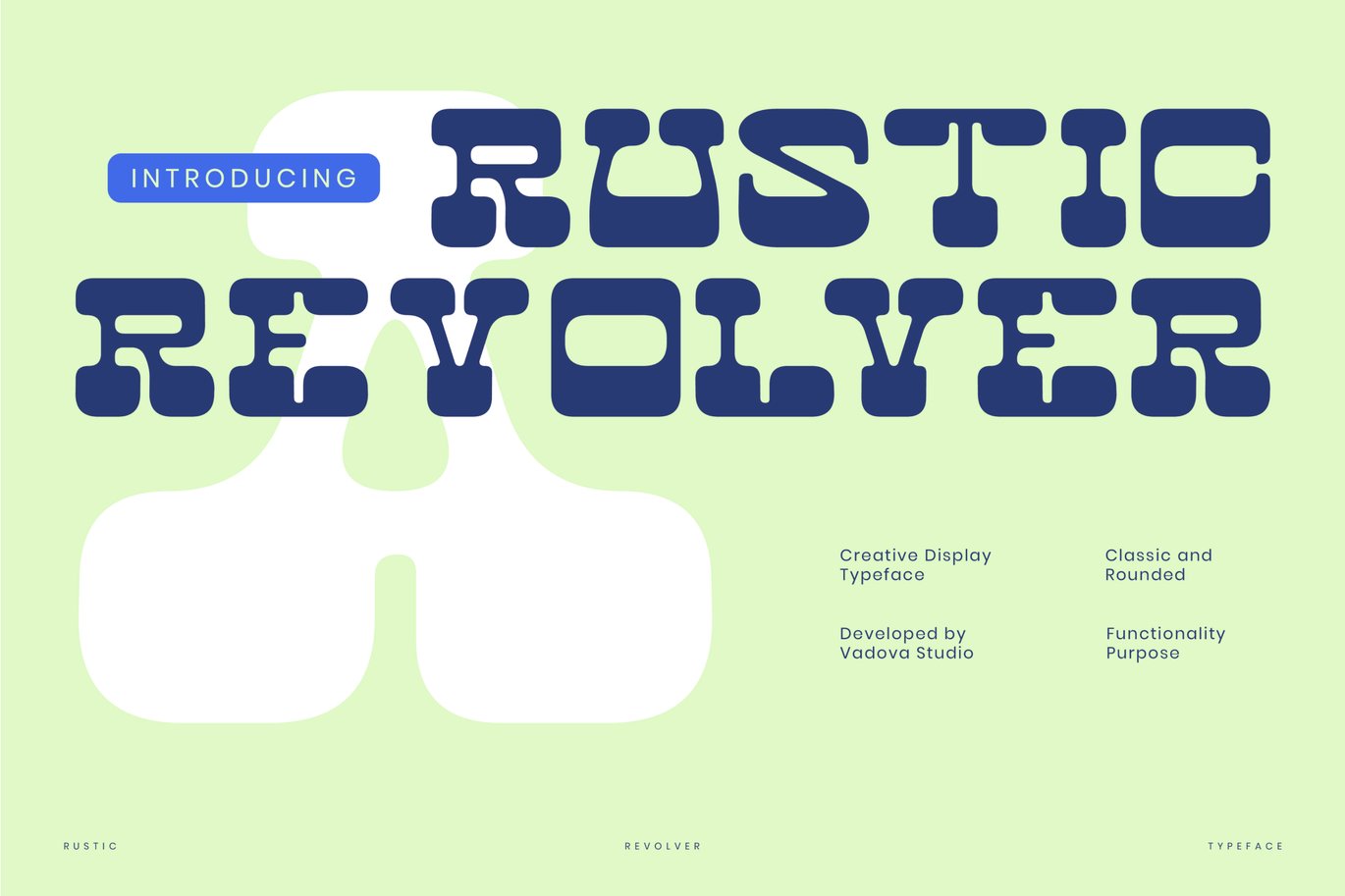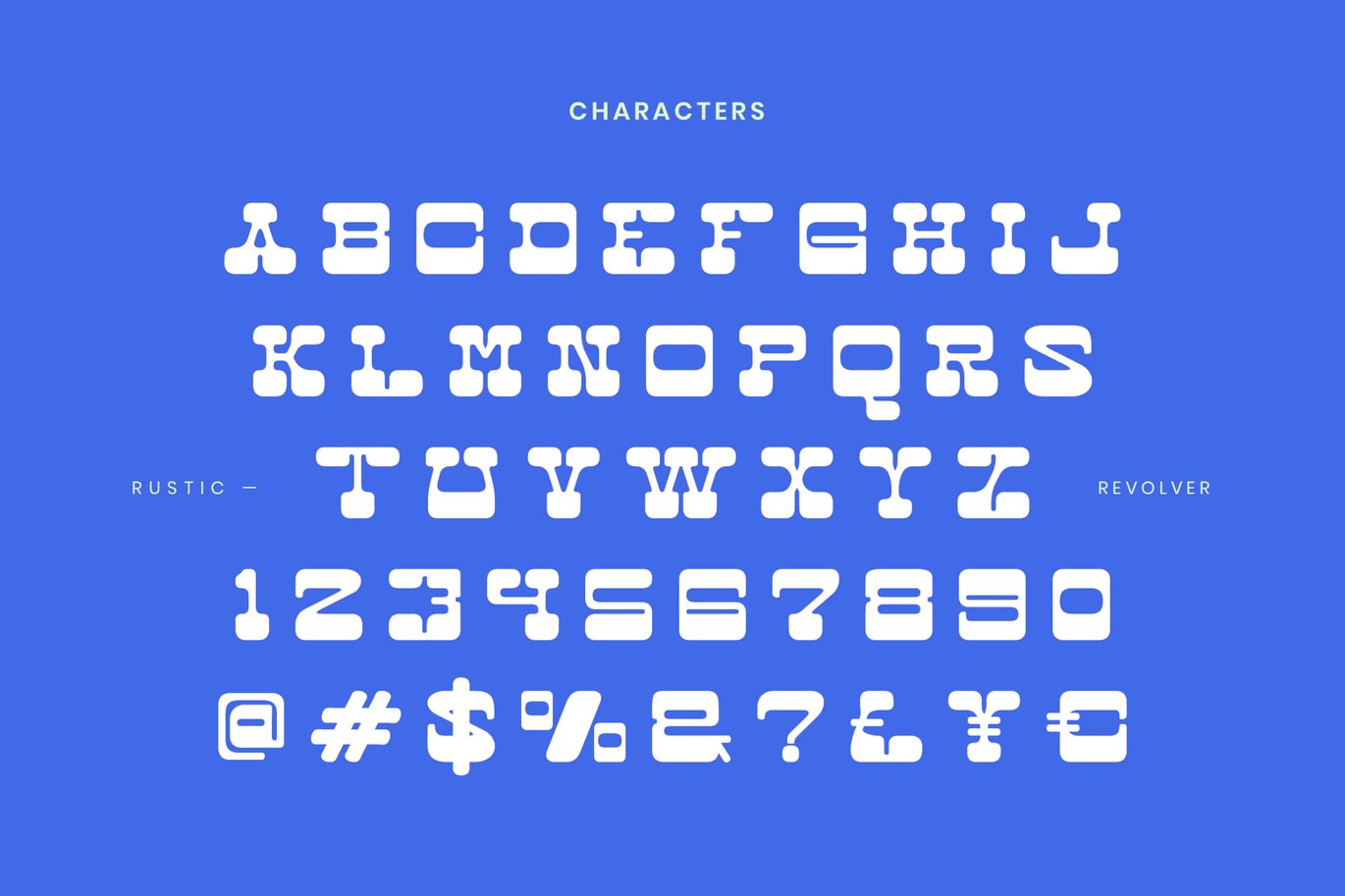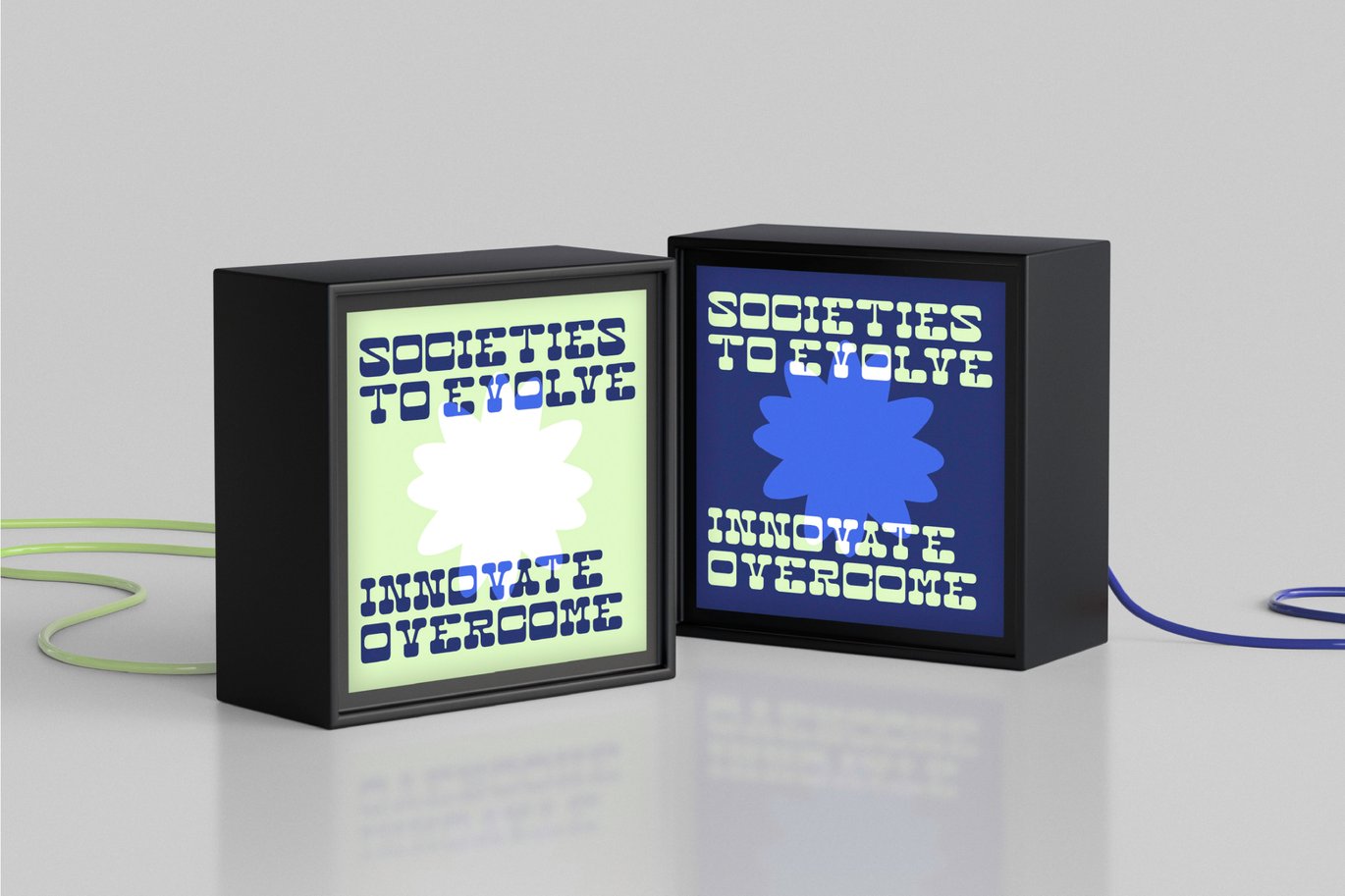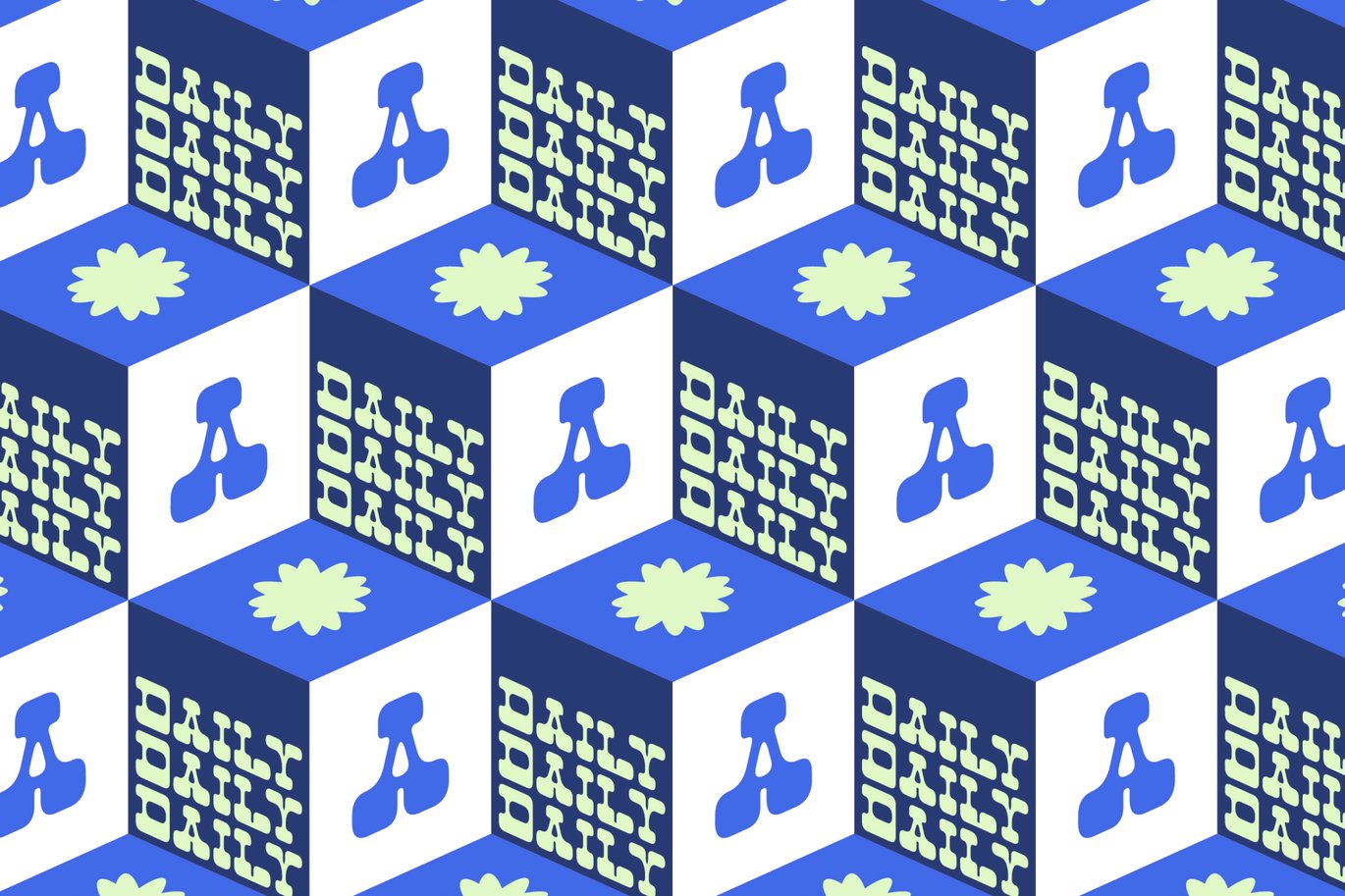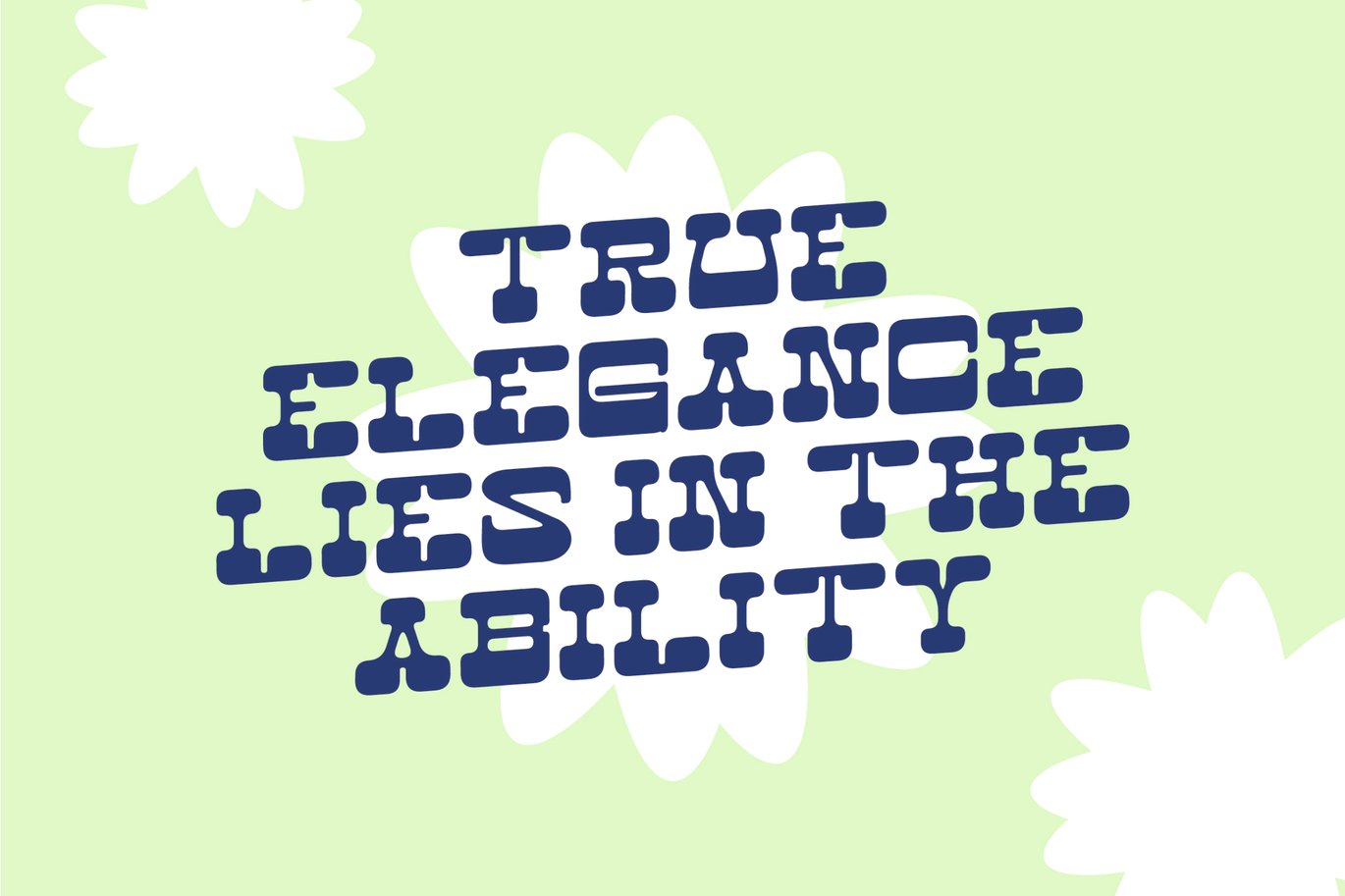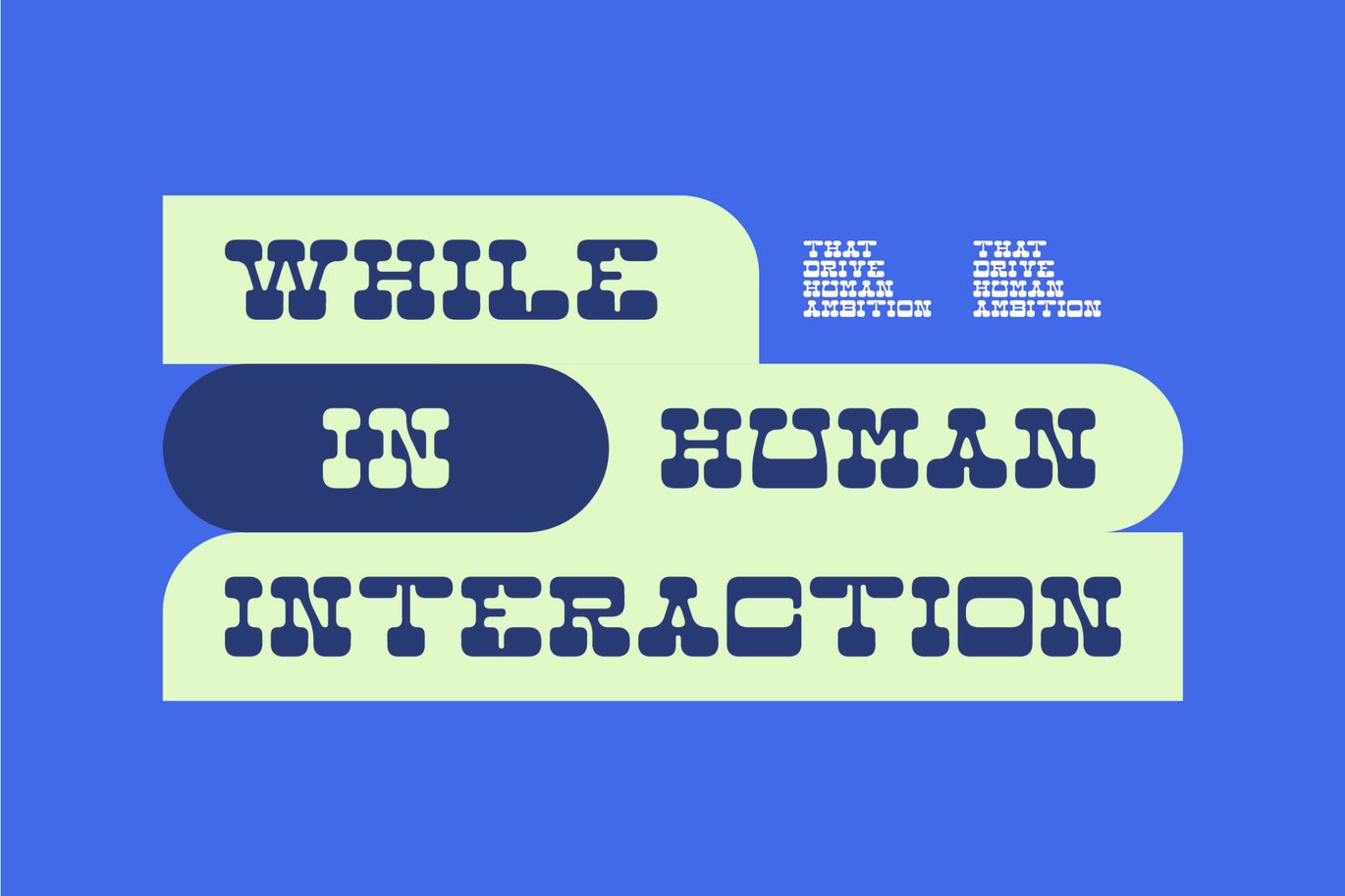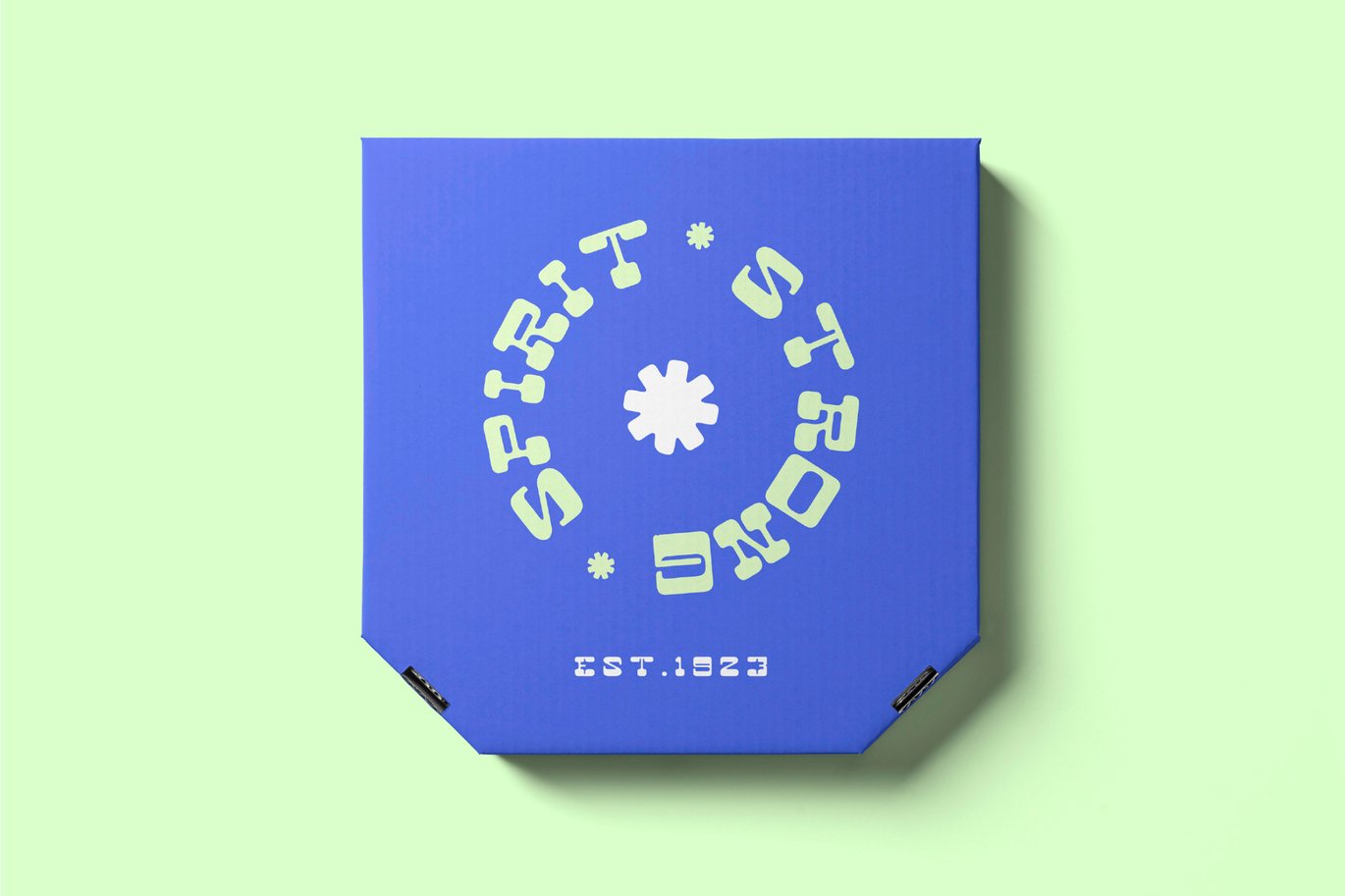
Rustic Revolver Creative Font
Elevate your designs with Rustic Revolver Creative Font, a bold and creative display typeface inspired by vintage Western aesthetics, retro signage, and playful typography. Its chunky, rounded letterforms with a touch of ruggedness make it perfect for posters, branding, packaging, and nostalgic-themed designs. The font exudes a sense of charm and personality, making it ideal for projects that need a mix of classic appeal and modern quirkiness. With its strong presence and eye-catching style, Rustic Revolver brings a fun and dynamic energy to any creative work.